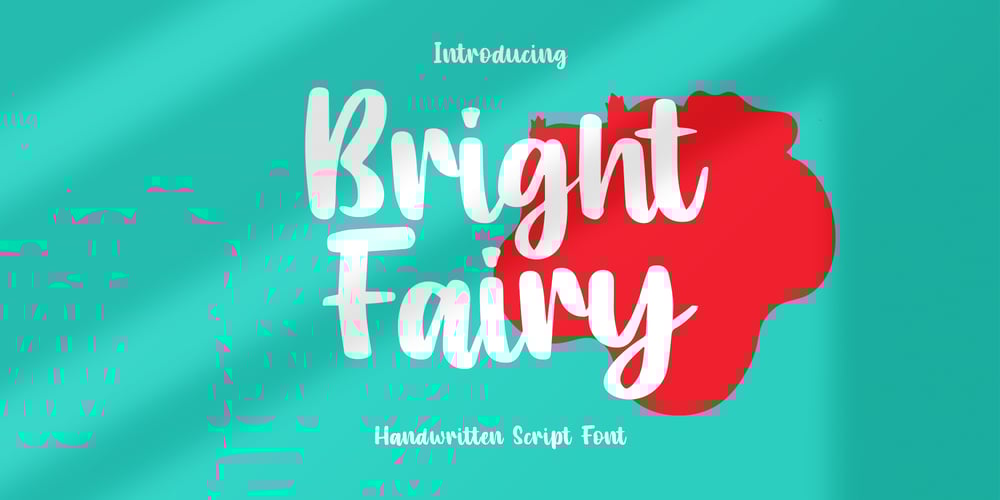
Bright Fairy Font Family was designed by Yahdi Kumala and published by Krakenbox Studio. Bright Fairy contains 1 styles and family package options. Bright Fairy is a handwritten script font. This stunning handwritten font is casual, classy, and Cool. It’s a great font for fashion, apparel projects, signature, album cover, logo, branding, magazine, social media, & advertisements, but also works great for other projects.